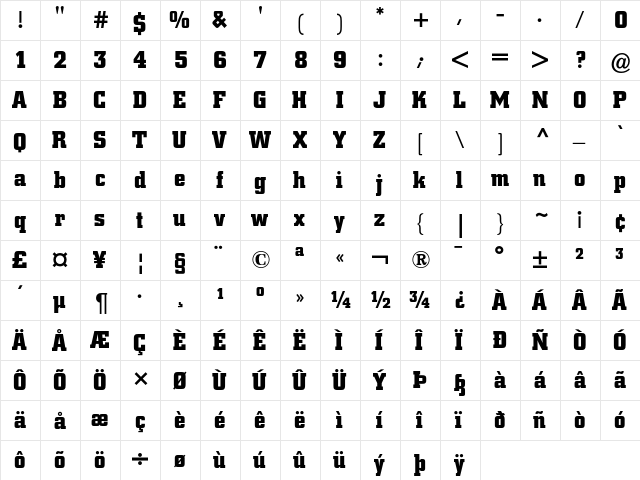
Berthold City Bold
Design Context for Berthold City Typeface
Berthold City takes a measured approach to typography — its balanced proportions and neutral character make it a reliable workhorse for both digital and print work. The heavy weight commands attention and anchors typographic hierarchies.